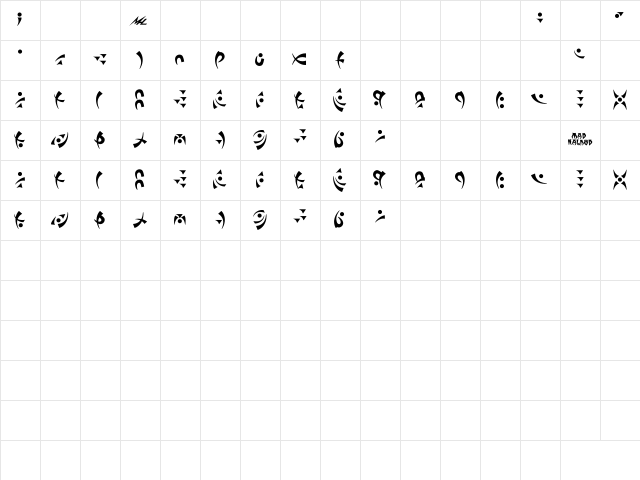
Complete Tak'cha Bold glyph index. Displaying only characters natively supported by Tak'cha Bold font.
Tak'cha is a composed and adaptable typeface that performs quietly and consistently across a wide range of design contexts. Its bold stroke weight gives it real presence on the page.